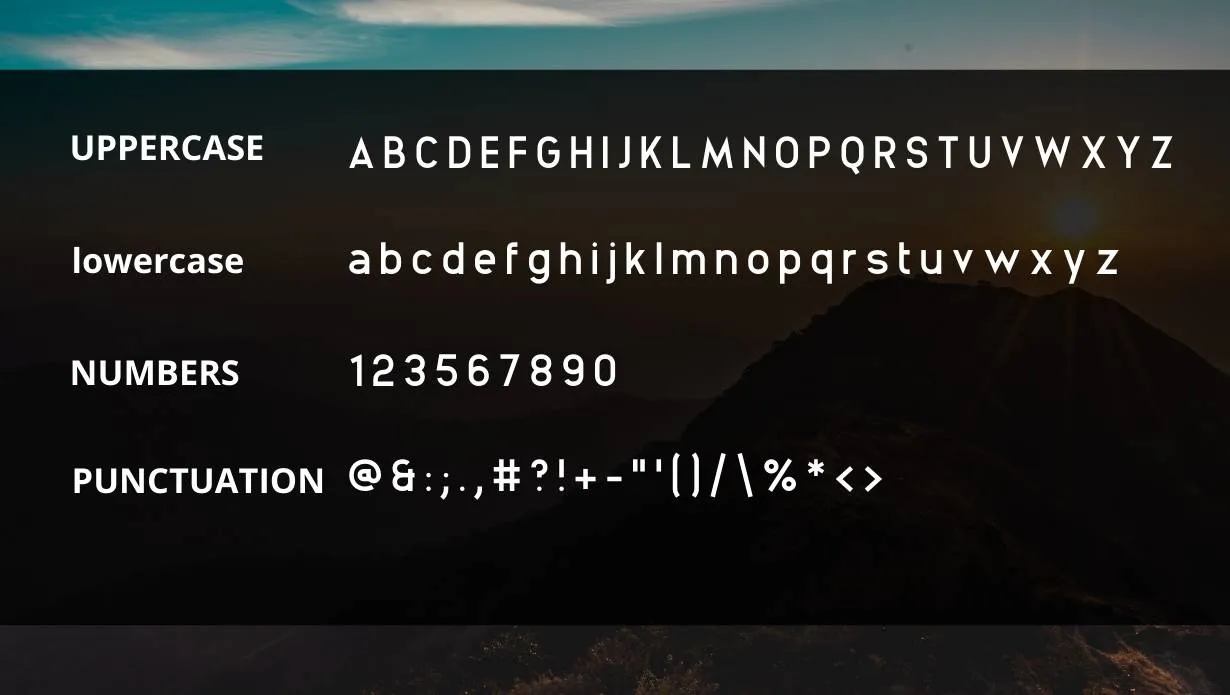
Animosa Font is a sans serif typeface created by Swiss designer Max Miedinger in 1957. The word “Animosa” is derived from the Latin word for “animal”, making it one of the first typefaces to be named after a non-human concept.
Animosa Font was originally released by the Haas Type foundry in Switzerland. It was later acquired by Linotype, who released a revised version in 1983. If you’re looking for a versatile sans serif typeface that can be used for a variety of applications, Animosa Typeface is a great choice.
- Animosa Regular
View of Animosa Font
| Name | Animosa Font |
| Designer | Max Miedinger |